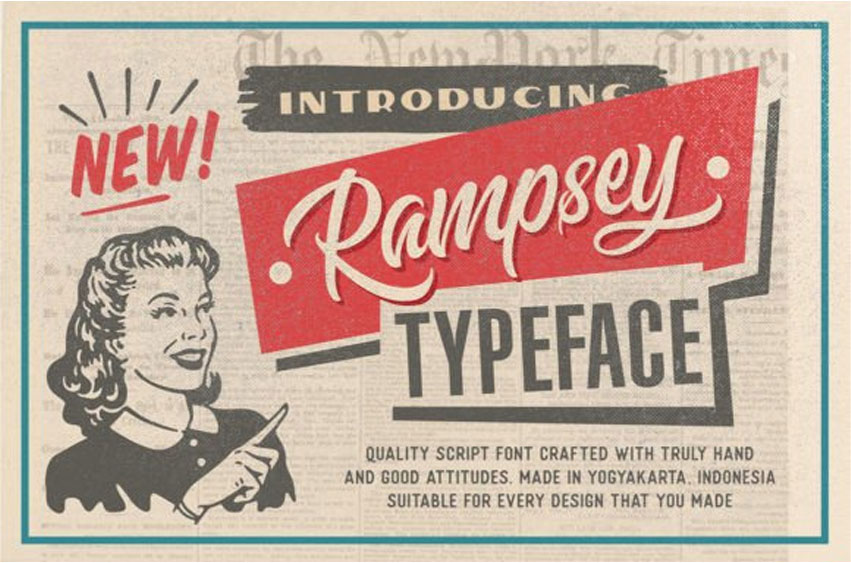
Rampsey Font is a retro and stylish script font is perfect for creating modern and sophisticated designs.
Its chic curves and lines add a unique flair to any project. Its classic style gives it a timeless elegance.